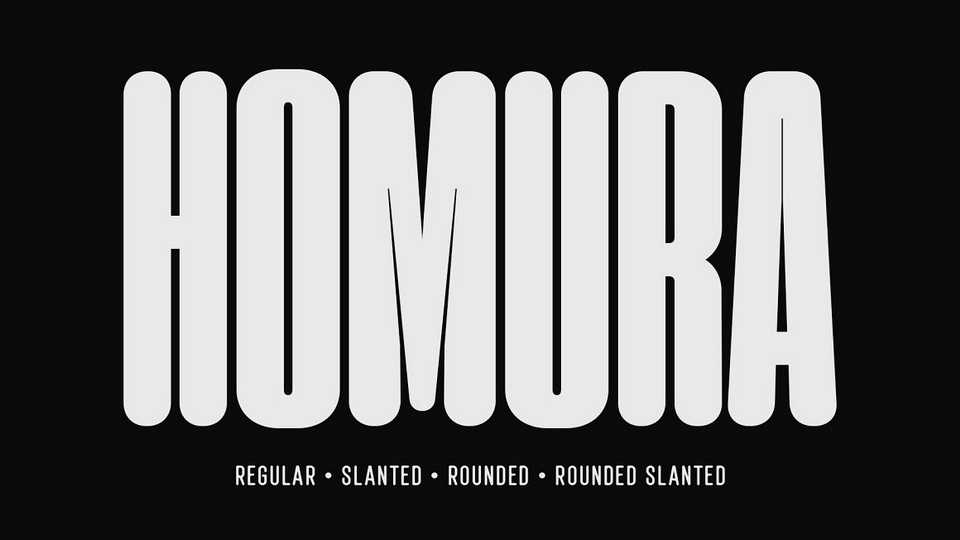
Download Homura font, a sans serif display typeface that is inspired by newspaper headlines and modern typography. Homura font is condensed, bold, and elegant, with a tight design that includes ink traps in some sharp corners, giving it a fancy, fun, and minimalist impression.